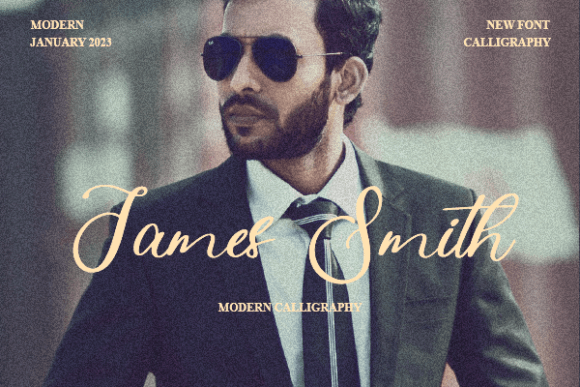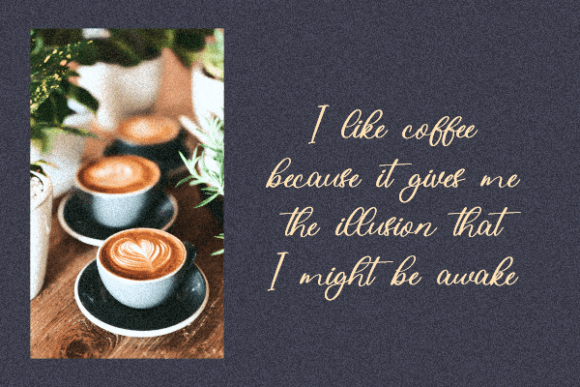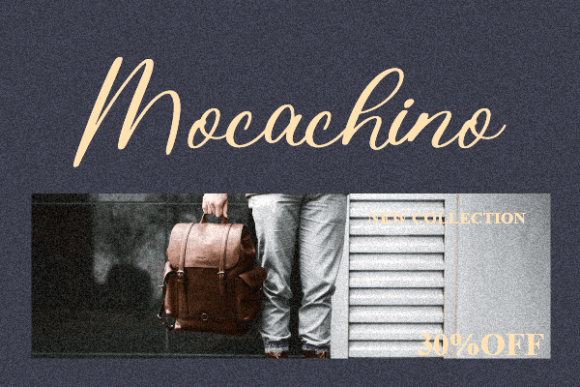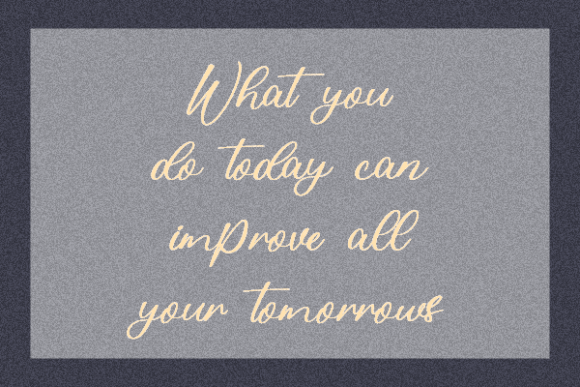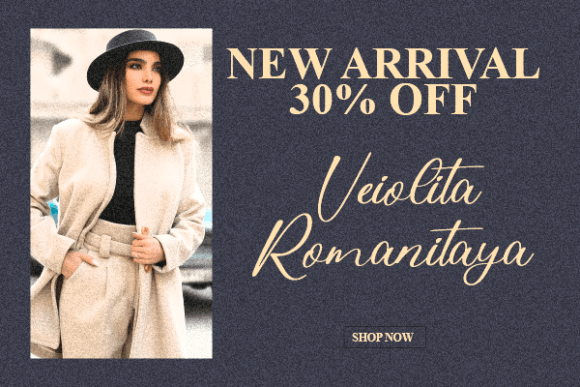
About James Smith
James Smith is a cool and exquisite handwritten font. Stylish, graceful, and flowing, this font will definitely elevate the look of any of your beautiful creations while keeping them grounded and natural.